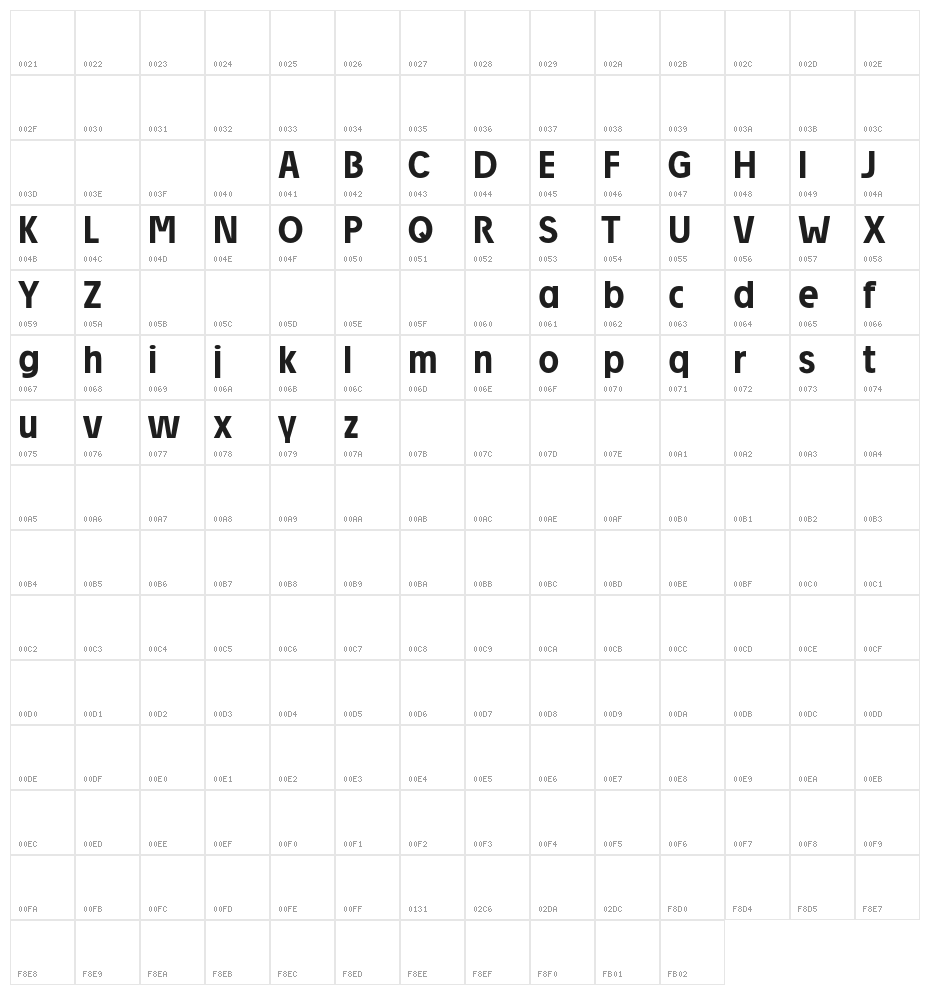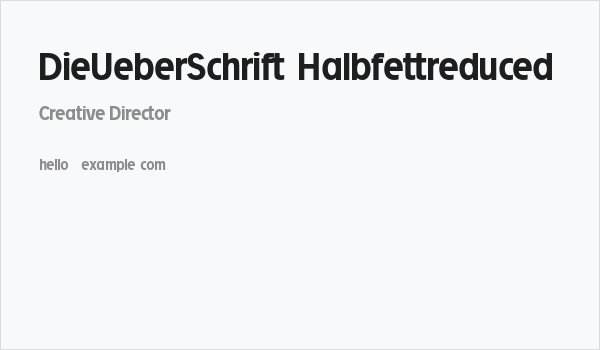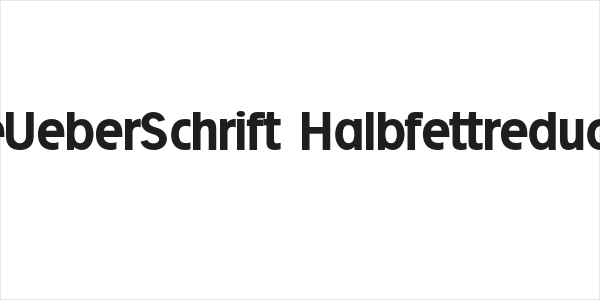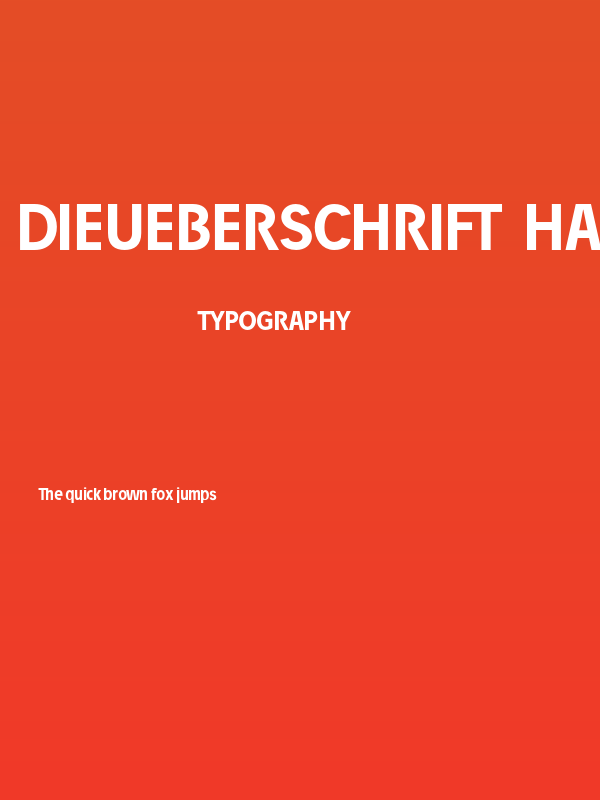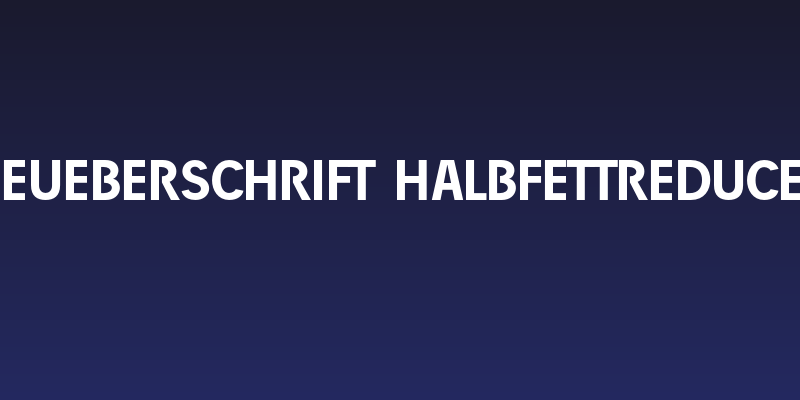
DieUeberSchrift-Halbfettreduced Font
DieUeberSchrift-Halbfettreduced Description
This font features a bold and clean sans-serif design, characterized by its strong geometric shapes and uniform stroke widths. The uppercase letters are robust and impactful, making them ideal for attention-grabbing headlines. The lowercase letters maintain a consistent style, ensuring readability and balance. The numerals are straightforward and align well with the overall aesthetic, while the special characters are designed to complement the font's modern and professional appearance. This font's simplicity and clarity make it versatile for various design applications.
| Proposed Projects | Ideal for branding, advertising, headlines, and digital media where clarity and impact are essential. |